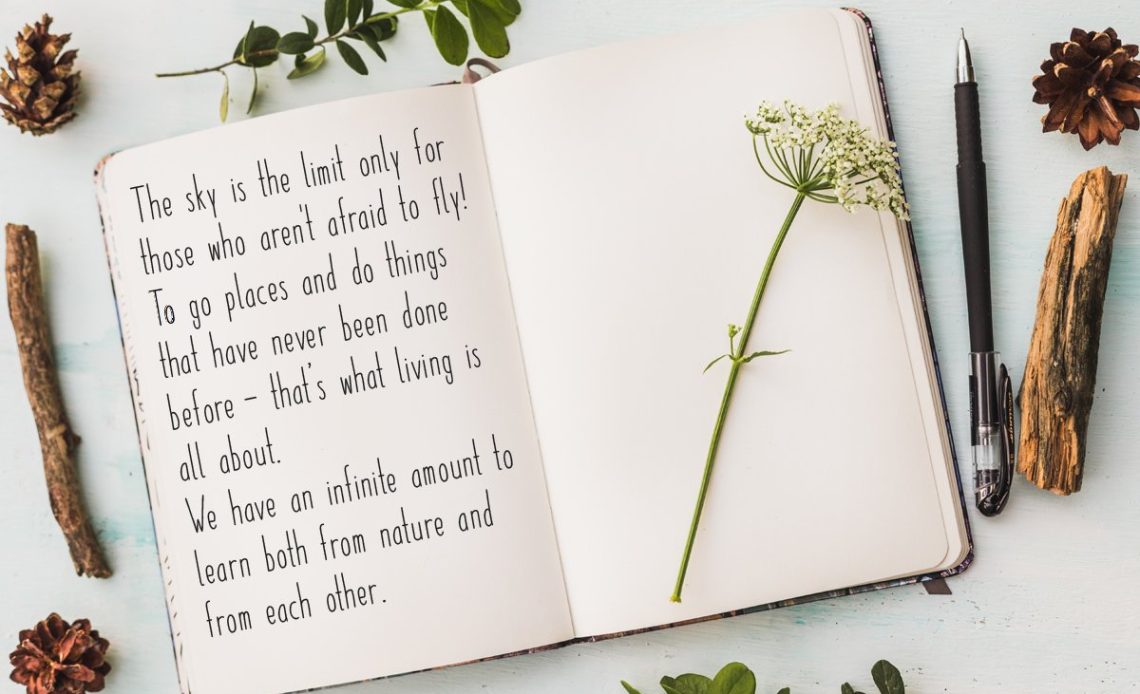
Introducing Paper Daisy Font, the perfect choice to add a touch of charm and uniqueness to your projects. Created with love and attention to detail by Jana • maja.mint, this handwritten condensed font is a must-have for anyone looking to elevate their designs.
With Paper Daisy, you can effortlessly transform your text into a work of art. This sans-serif font exudes a sense of elegance and sophistication, making it ideal for a wide range of applications. Whether you're designing a logo, creating eye-catching social media posts, or crafting beautiful invitations, Paper Daisy will make your words shine.
One of the standout features of Paper Daisy is its collection of adorable symbols. From arrows to hearts, stars to musical notes, these charming additions will bring your text to life. Simply set the font to Paper Daisy and copy and paste the symbols directly into your design. It's that easy!
But that's not all – Paper Daisy supports multiple languages, including Czech, Danish, Dutch, Finnish, French, German, Hungarian, Icelandic, Italian, Norwegian, Polish, Portuguese, Spanish, Swedish, and any other languages using the basic Latin alphabet. This makes it a versatile choice for international projects.